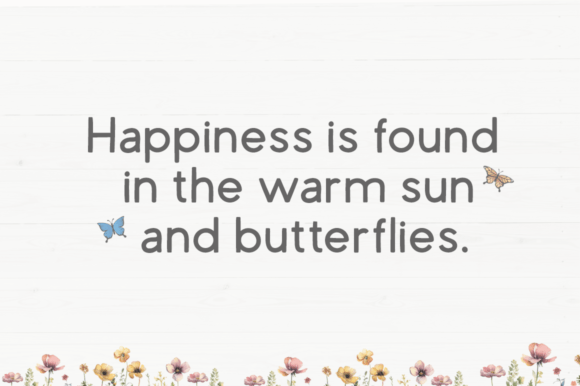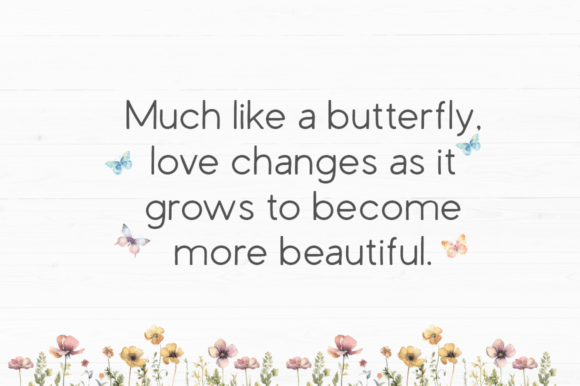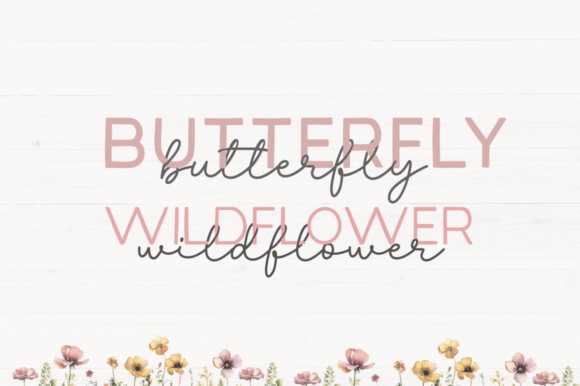
Butterfly Wildflower Font
Introducing Butterfly Wildflower, a font trio featuring thin and bold sans serif styles along with a script font. This versatile set also includes a bonus of 25 butterfly EPS-SVG files. Unleash your creativity to make your designs even more beautiful with this font. Perfect for logos, signs, Cricut projects, mugs, bags, and much more!